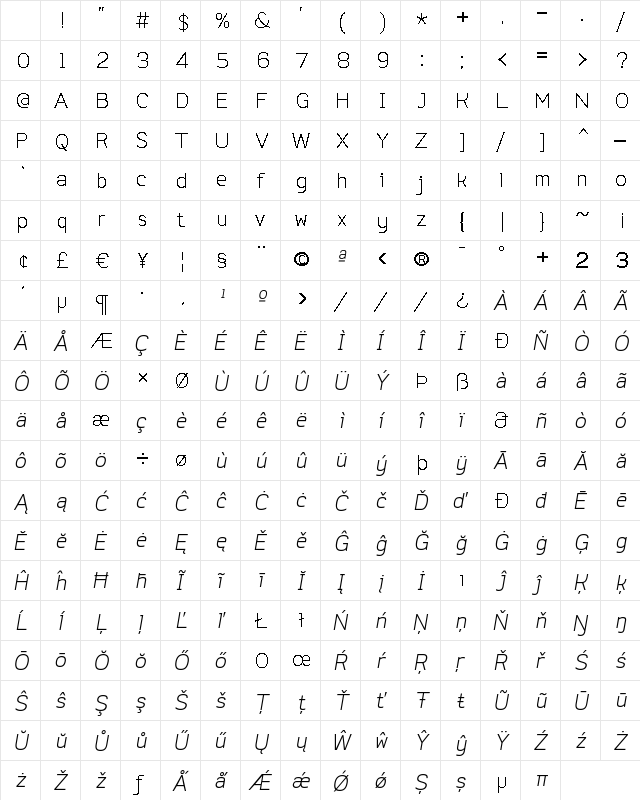
Complete Do Gothic Light Oblique glyph index. Displaying only characters natively supported by Do Gothic Light Oblique font.
Do Gothic takes a clean, functional approach - its unadorned letterforms prioritise legibility and work reliably across screen and print environments. The slanted form adds forward momentum and visual energy. Its slender proportions lend an understated elegance to any composition.
Font Pairing: Pair Do Gothic with a medium or bold serif for headlines - the weight contrast creates an elegant, high-end feel.
Pro Tip: Use Do Gothic with generous tracking and line-height for the most luxurious effect - light sans-serifs reward spacious, considered layouts.